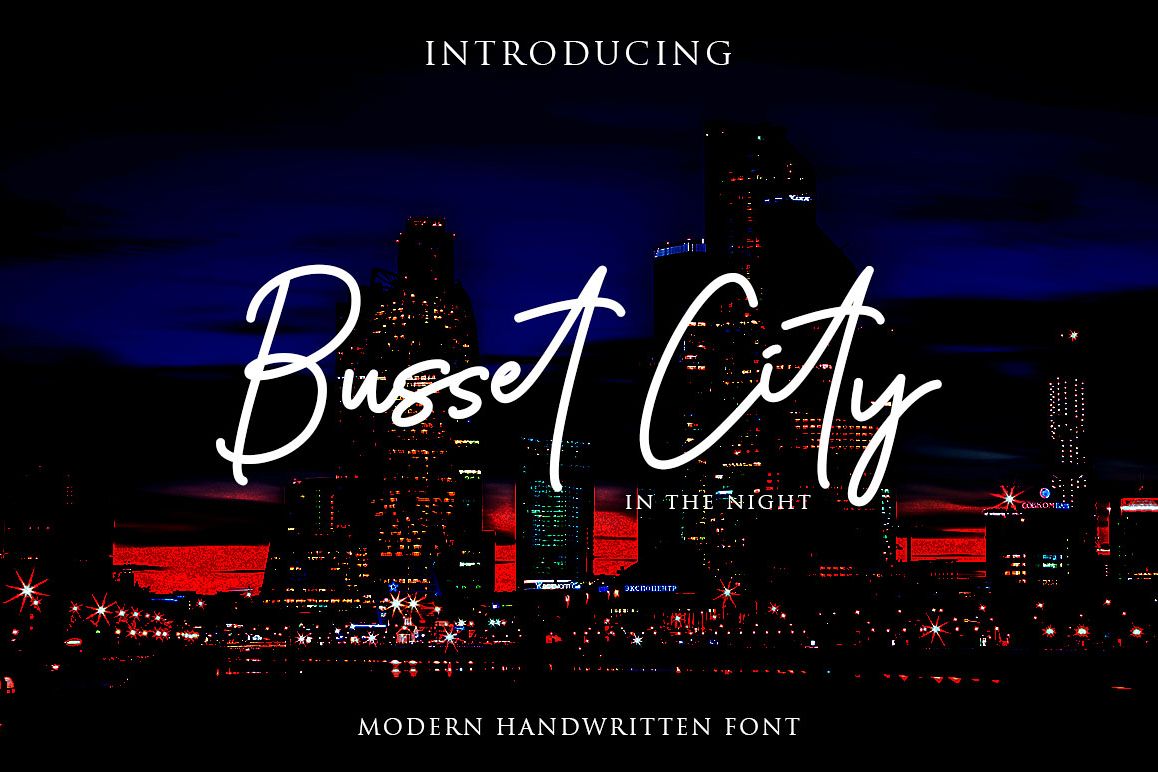
Busset City Excellent Handwritten
Busset City
Busset City - a new fresh handmade signature script font. Very suitable for greeting cards, branding materials, business cards, quotes, posters, and more!This font are perfect for wedding postcard. Or you can create perfect and unique design of your logo, blog, stationery, marketing, magazines and more :)
• UpperCase & Lowercase
• Numerals & Punctuations
• Multilingualcharacters(AÀÁÂÃÄÅCÇDÐEÈÉÊËIÌÍÎÏNÑOØÒÓÔÕÖUÙÜÚÛWYÝŸŸ ÆŒßÞàáâãäåæçèéêëìíîïðñòóôõöøùúûüýÿ)